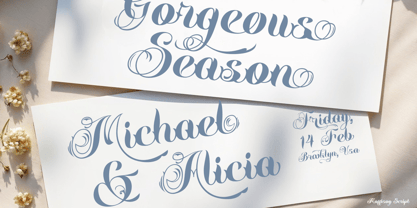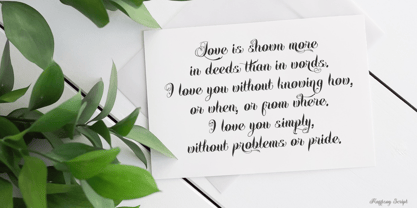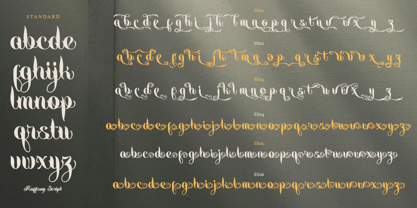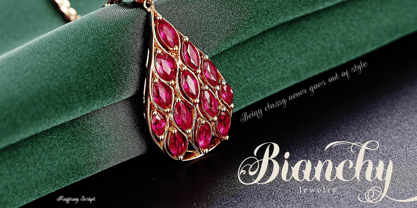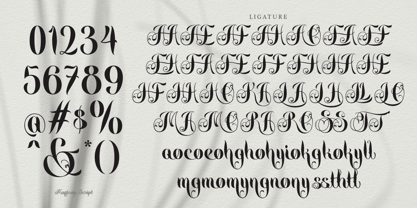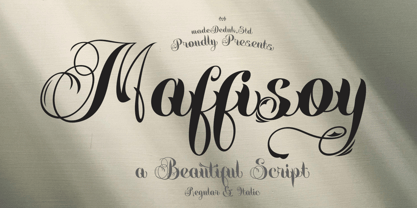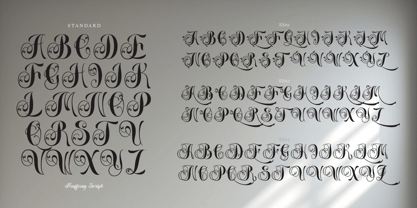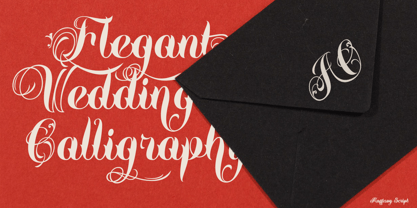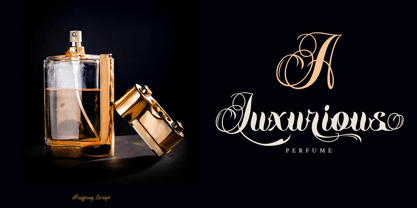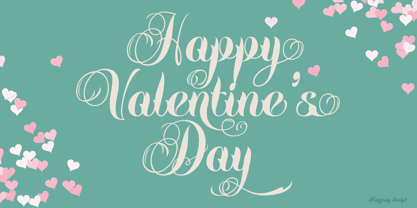
Maffisoy
by madeDeduk
The Maffisoy Font Family was designed by madededuk and published by madeDeduk. Maffisoy contains 2 styles and family package options. More about this family
Introducing Maffisoy, a luxury script font distinguished by its elegant curves and refined ornamental swirls. Inspired by classic European typography, it embodies exclusivity, elegance, and sophistication, significantly enhancing the visual appeal of any design. Ideal for poster titles, premium branding, exclusive logos, and formal invitations, this font showcases artistic yet well-balanced letterforms that add a glamorous and professional touch to a wide range of visual designs. With its versatile weights and OpenType features, Maffisoy is perfect for elevating your creative projects and making a lasting impression.